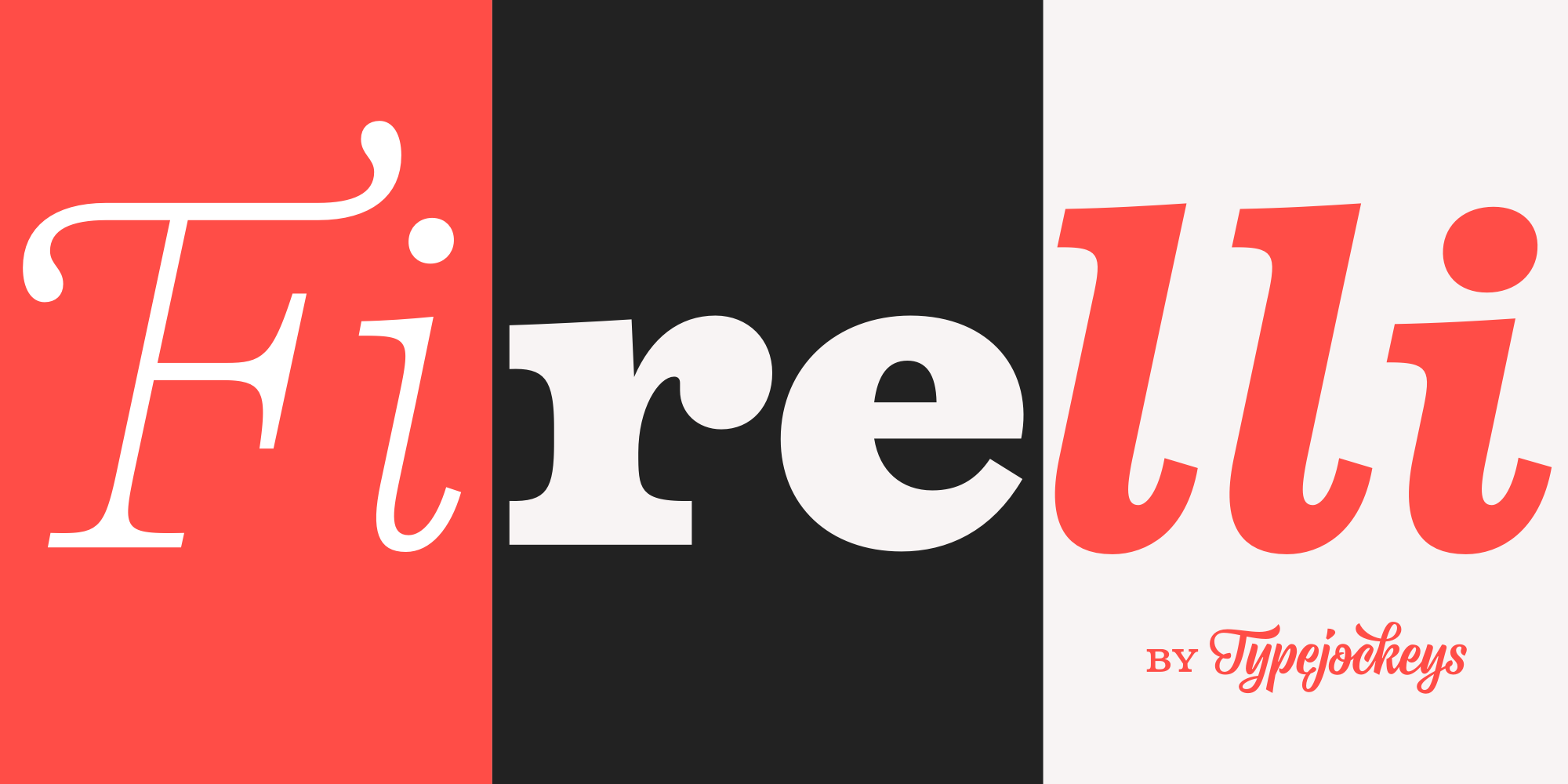
Firelli Font is perfect for luxury automotive branding, high-performance racing designs, premium sports car marketing, motorsport event posters, speed-focused advertising campaigns, dynamic logo designs, racing team merchandise, automotive magazine headlines, and any projects that need to convey speed, precision, and Italian racing heritage.
What makes Firelli Font exciting is its aerodynamic design inspired by the sleek lines and precision engineering of high-performance racing vehicles. This dynamic typeface features streamlined letterforms with flowing curves and sharp angles that capture the essence of speed and automotive excellence. The font's racing-inspired character and sophisticated styling make it perfect for brands in the automotive industry seeking to communicate performance, luxury, and the thrill of high-speed competition.
Firelli Font family includes performance-driven weight variations featuring light, regular, medium, bold, and black options. The font family also offers italic versions with enhanced speed-line characteristics, along with condensed and extended variants optimized for different racing and automotive applications. Special features include automotive symbols, racing ornaments, and speed-inspired decorative elements that enhance the high-performance atmosphere.